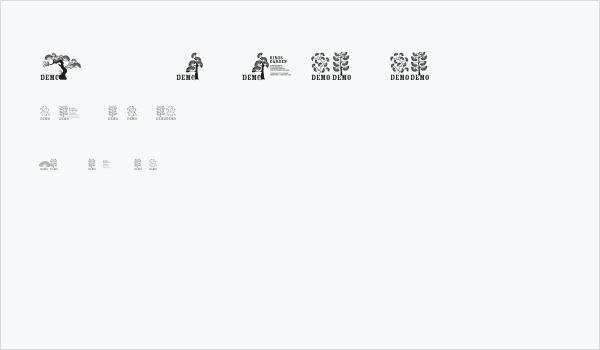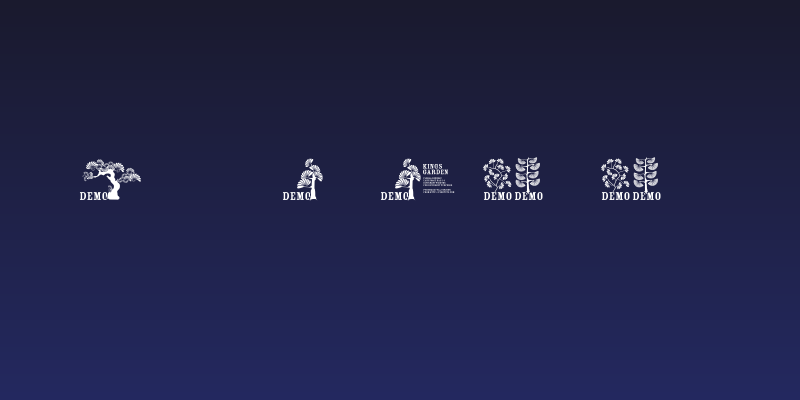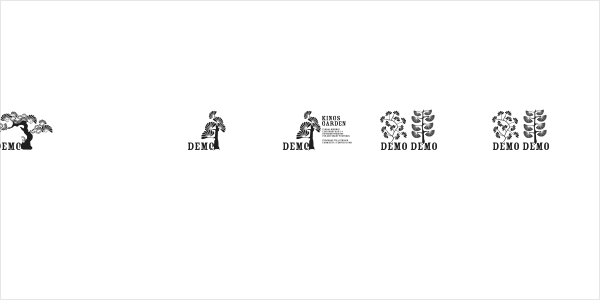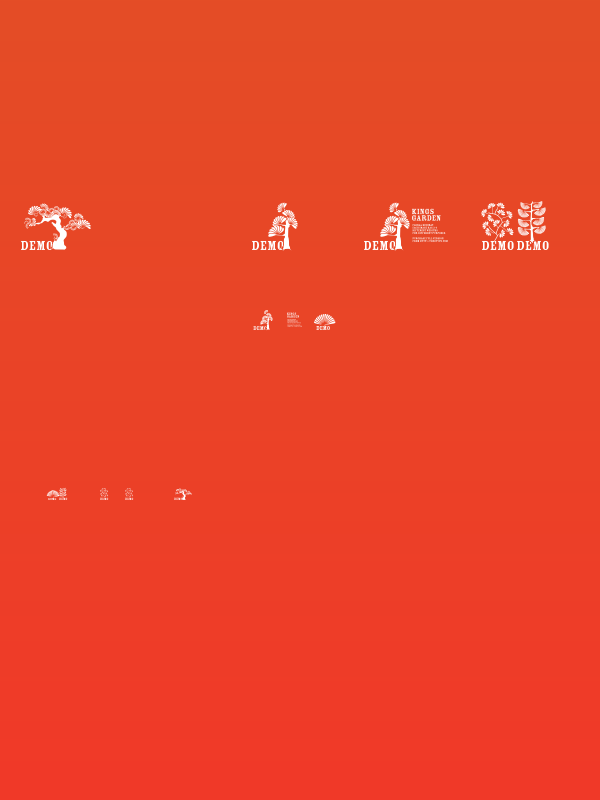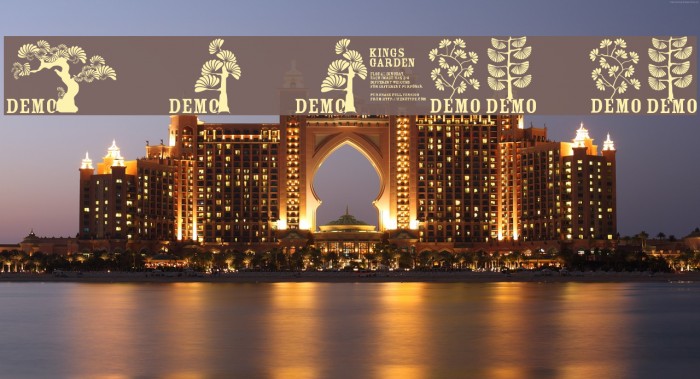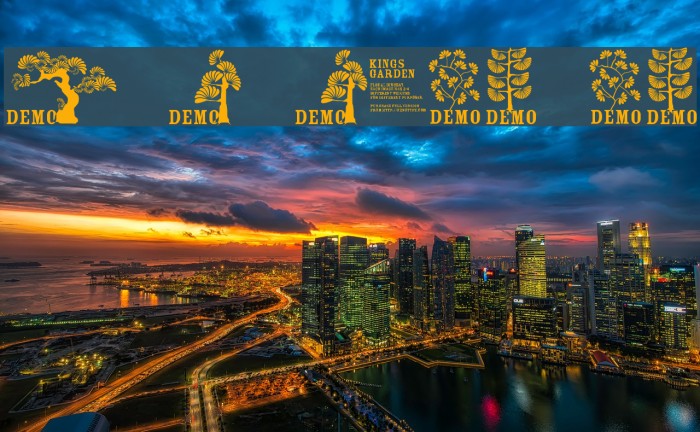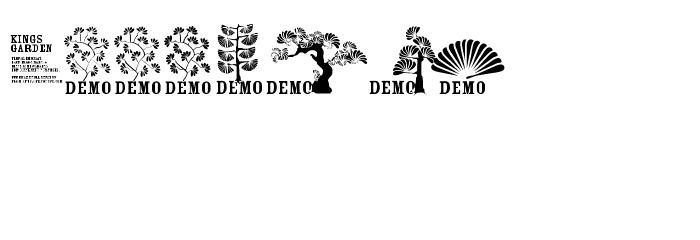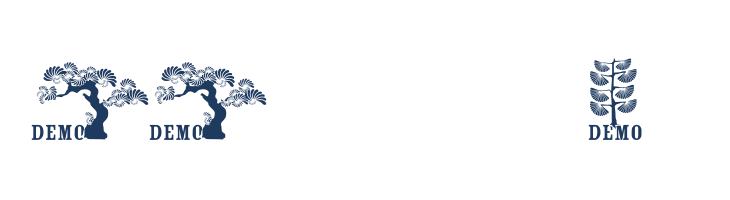
FT Kings Garden DEMO Font
This font is a decorative display typeface that incorporates intricate botanical and nature-inspired elements into its design. Each letter is adorned with detailed illustrations of leaves, trees, and other natural motifs, creating a unique and artistic appearance. The font is bold and eye-catching, making it ideal for projects that require a strong visual impact. The intricate details in each character suggest a handcrafted feel, adding a touch of elegance and sophistication. The overall style is both whimsical and refined, suitable for creative and artistic applications.
| Proposed Projects | Ideal for branding, packaging, event invitations, and artistic posters. |